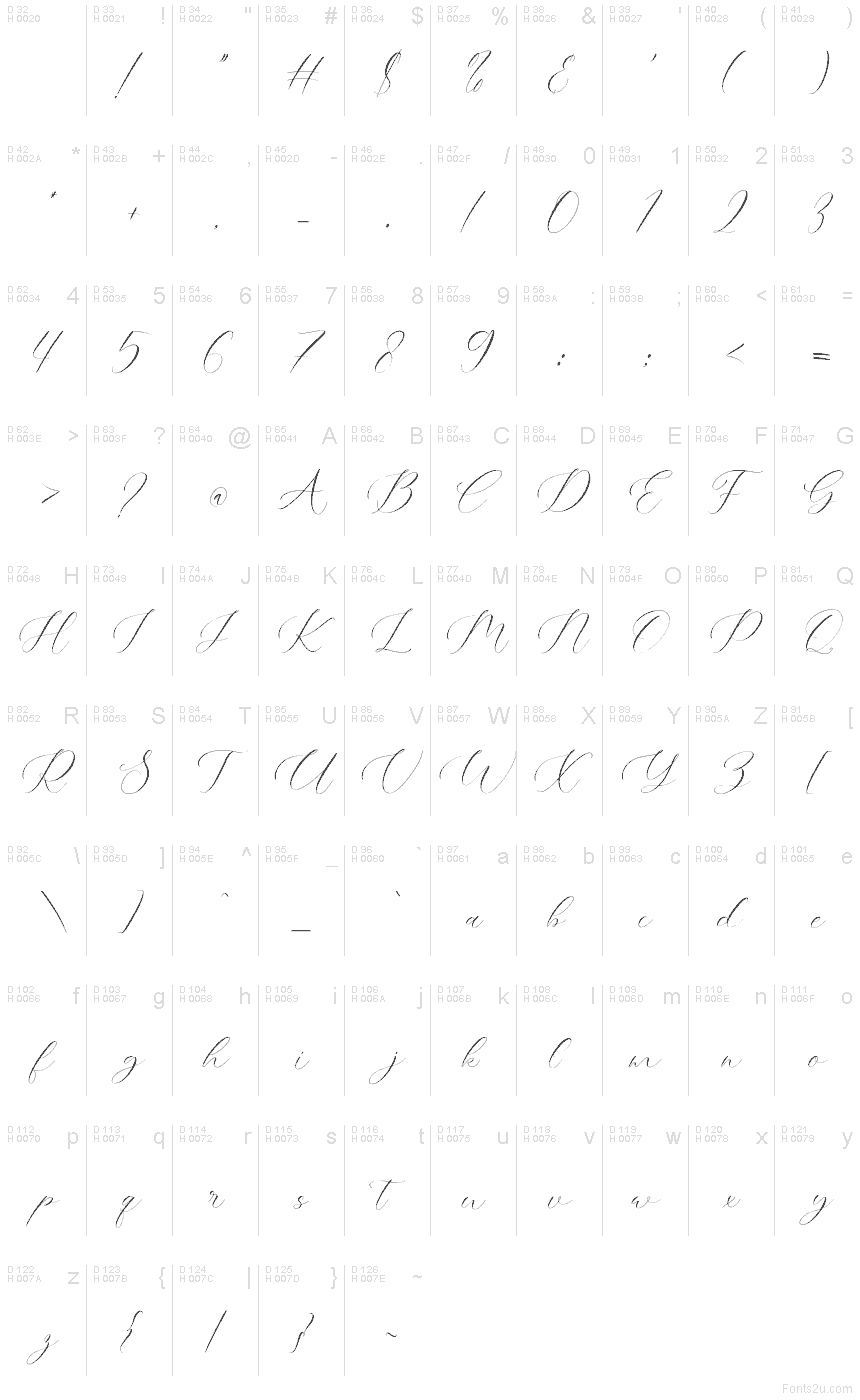
NCL Glassdy Overtyeg
NCL Glassdy Overtyeg font by Enxyclo Studio is a free calligraphy typeface that writes like a glass nib on smooth paper—filament-thin strokes, silken loops, and an elegant forward slant. Its airy spacing and long, drifting swashes give words a breathy shimmer without tipping into messiness, making delicate lines feel intentional and refined.
Using NCL Glassdy Overtyeg, you can elevate wedding invitations, perfume or boutique logos, fine stationery, quote overlays, social posts, save‑the‑dates, and digital signatures. The hairline weight sings at larger sizes; give it room and let the curves glow. For balance, pair this free font with a quiet, neutral sans for body copy or small captions.